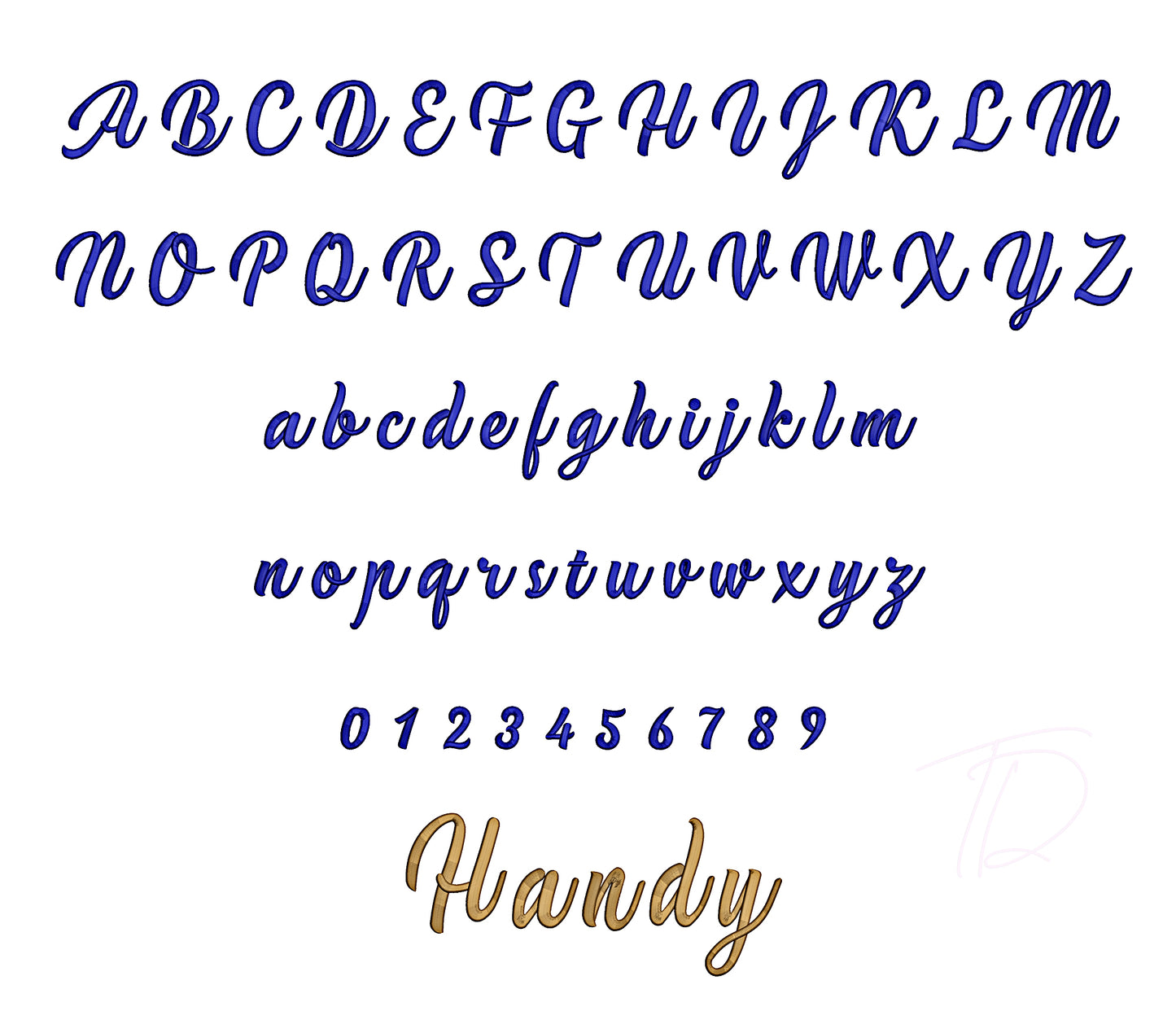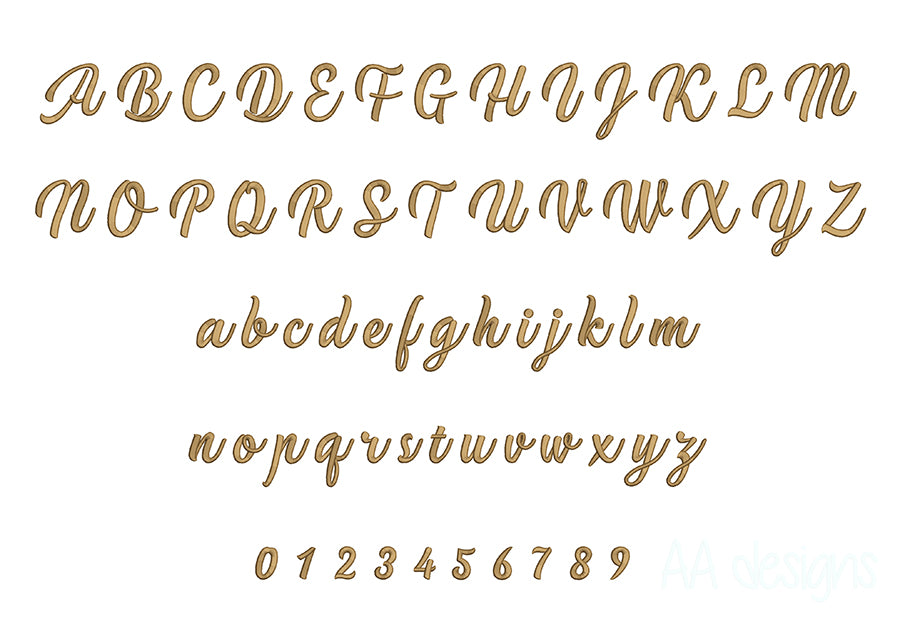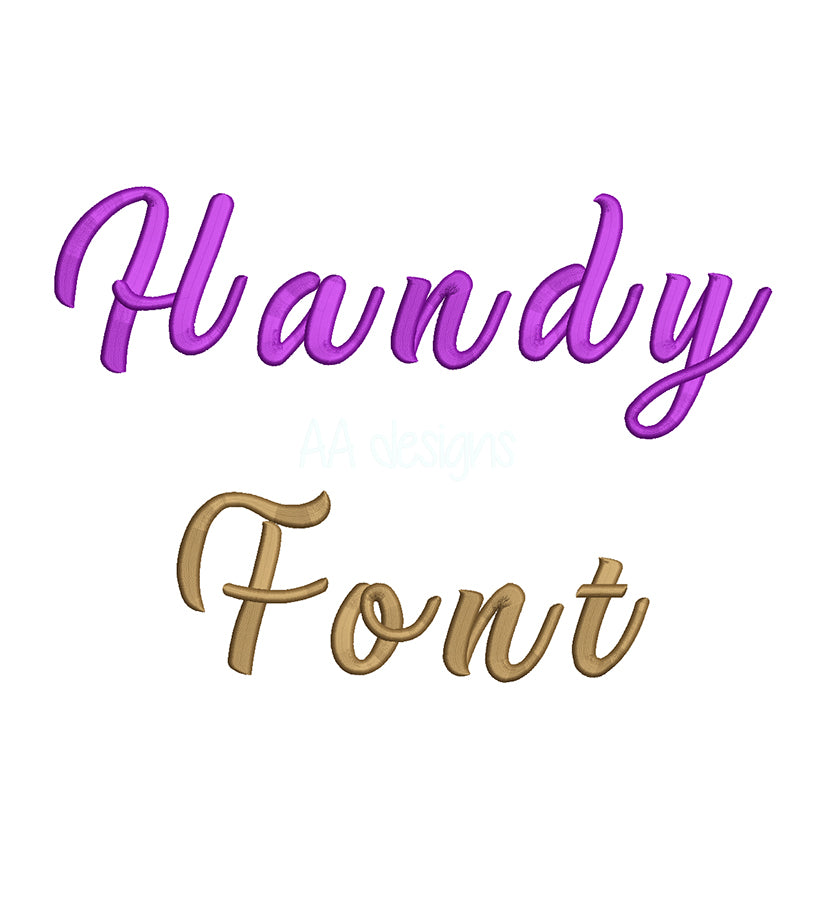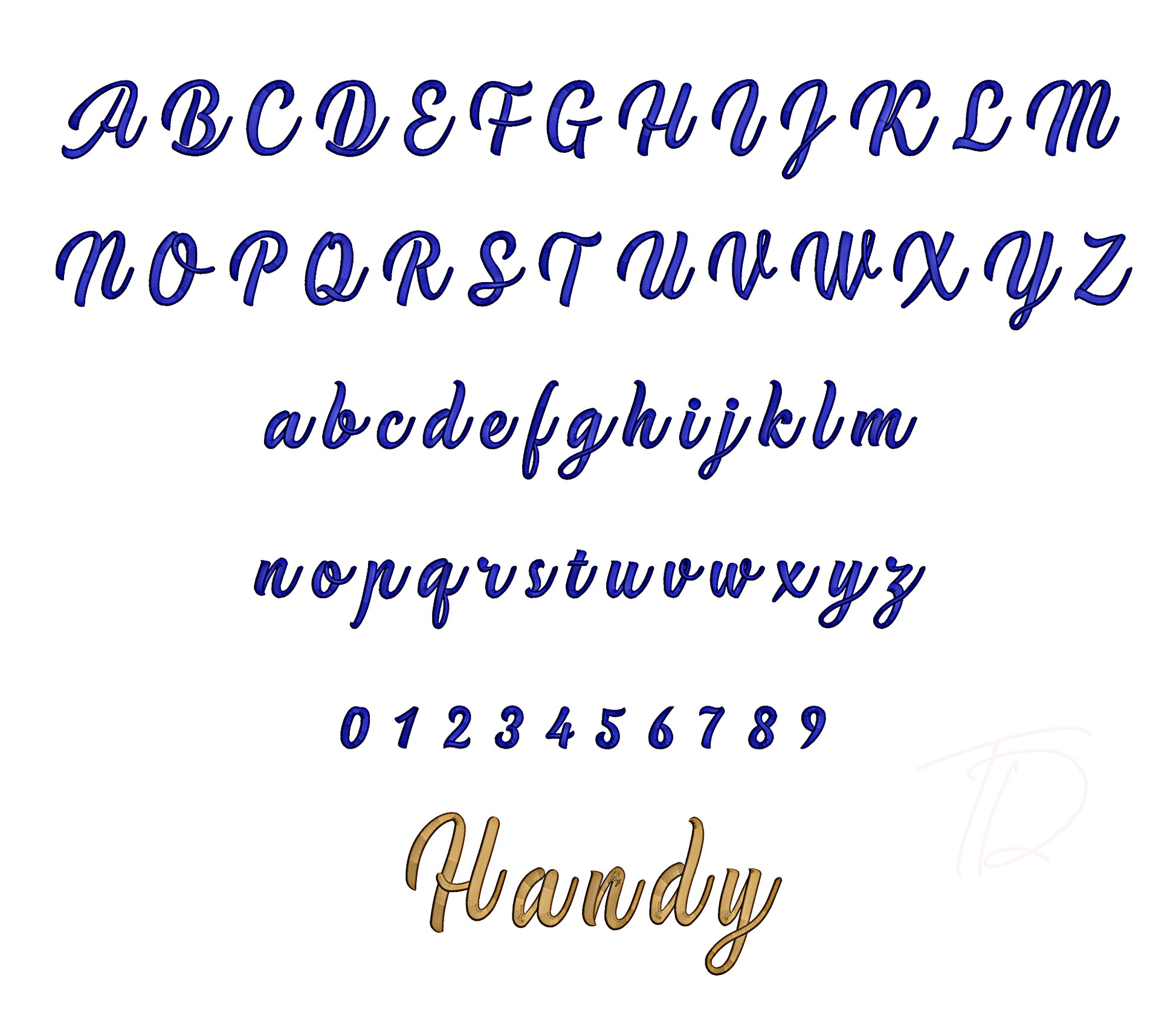
Handy 3D puff embroidery digital font. Embroidery alphabet in 3D puff foam. BX format
Handy 3D puff embroidery digital font
This font comes with letters in 3 sizes, A-Z, a-z, 0-9